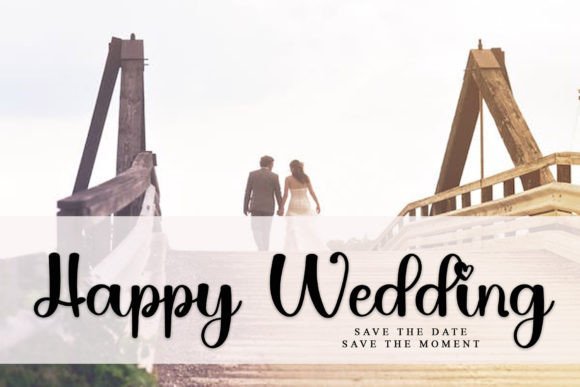
Bride Vintage Font: Elevate Your Designs with Elegance and Sophistication
The world of typography is vast and diverse, offering a multitude of font styles to suit every design need. Among these, the Bride Vintage font stands out for its unique blend of classic calligraphy and modern flair. This exquisite handwritten font is designed to capture the essence of elegance and sophistication, making it a perfect choice for designers looking to add a touch of refinement to their projects.
The Charm of Bride Vintage Font
Bride Vintage is not just a font; it’s an experience. It brings to the table a classy calligraphic influence that is reminiscent of traditional wedding invitations and elegant stationery. However, what sets it apart is its ability to feel contemporary and fresh, making it versatile for a wide range of design applications. Whether you’re working on a wedding-related project, a luxury brand’s marketing materials, or simply looking for a font that exudes sophistication, Bride Vintage is sure to impress.
Key Features of Bride Vintage Font
- Handwritten Elegance: Bride Vintage boasts a beautifully crafted handwritten style that adds a personal touch to any design.
- Classical Calligraphic Influences: It draws inspiration from traditional calligraphy, providing a sense of luxury and elegance.
- Contemporary Twist: Despite its classic roots, the font maintains a modern feel, making it suitable for current design trends.
- Versatility: From wedding invitations and luxury branding to packaging and digital content, Bride Vintage can elevate any project.
Why Choose Bride Vintage?
In a sea of fonts, Bride Vintage manages to stand out for several reasons. Its unique blend of traditional and modern elements makes it a versatile choice for designers. Moreover, its handwritten nature gives designs a personal and intimate feel, which is hard to achieve with more conventional fonts. The font’s legibility and flow also ensure that it communicates messages clearly and effectively, making it not just beautiful but also functional.
Ideal Applications for Bride Vintage Font
Wedding and Event Planning
Bride Vintage shines in wedding-related designs. It’s perfect for invitations, save-the-date cards, and wedding websites, adding an elegant and personal touch to these special occasions.
Luxury Branding
For luxury brands, establishing an image of elegance and sophistication is crucial. Bride Vintage can be used in logos, marketing materials, and packaging to convey a sense of high-end quality.
Digital Content
In the digital realm, standing out is key. Using Bride Vintage in blog headers, social media graphics, and website titles can add a touch of class and differentiate your content.
How to Use Bride Vintage Font Effectively
To truly leverage the potential of Bride Vintage, it’s essential to understand the basics of typography and design. Here are a few tips:
Pairing
Pair Bride Vintage with simpler fonts for body text to create contrast and visual interest. Sans-serif fonts often work well for this purpose.
Sizing
Experiment with different sizes to emphasize certain parts of your text. Larger sizes can be stunning for headings, while smaller sizes can be used for less prominent information.
Color
Stick to elegant color schemes. Neutrals like black, white, and grays are classic choices, but soft pastels can also complement the font beautifully.
Bride Vintage font is a masterpiece that brings together the best of both worlds: the elegance of traditional calligraphy and the freshness of modern design. Its versatility, beauty, and functionality make it an invaluable tool for designers looking to elevate their projects. Whether you’re planning a wedding, crafting a luxury brand’s identity, or simply seeking a font that adds a touch of sophistication, Bride Vintage is sure to exceed your expectations. Fall in love with its charm and let it bring your designs to the highest levels of elegance and refinement.